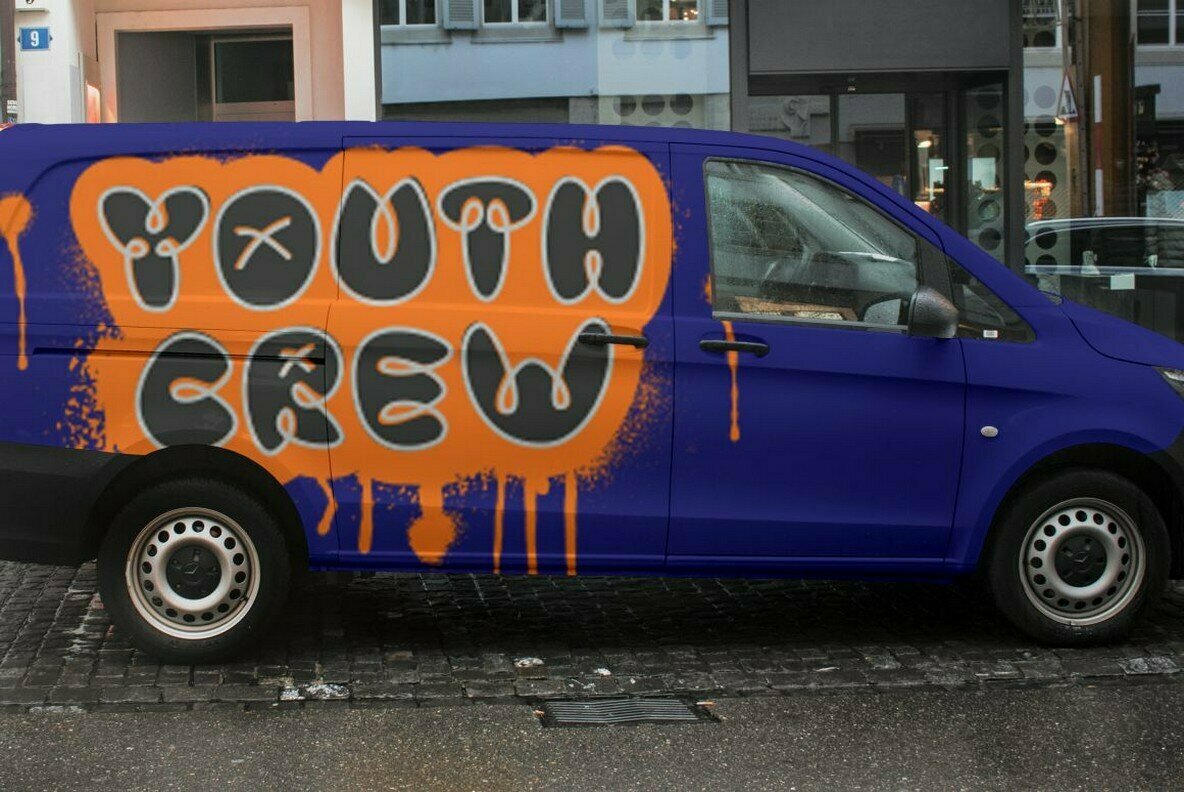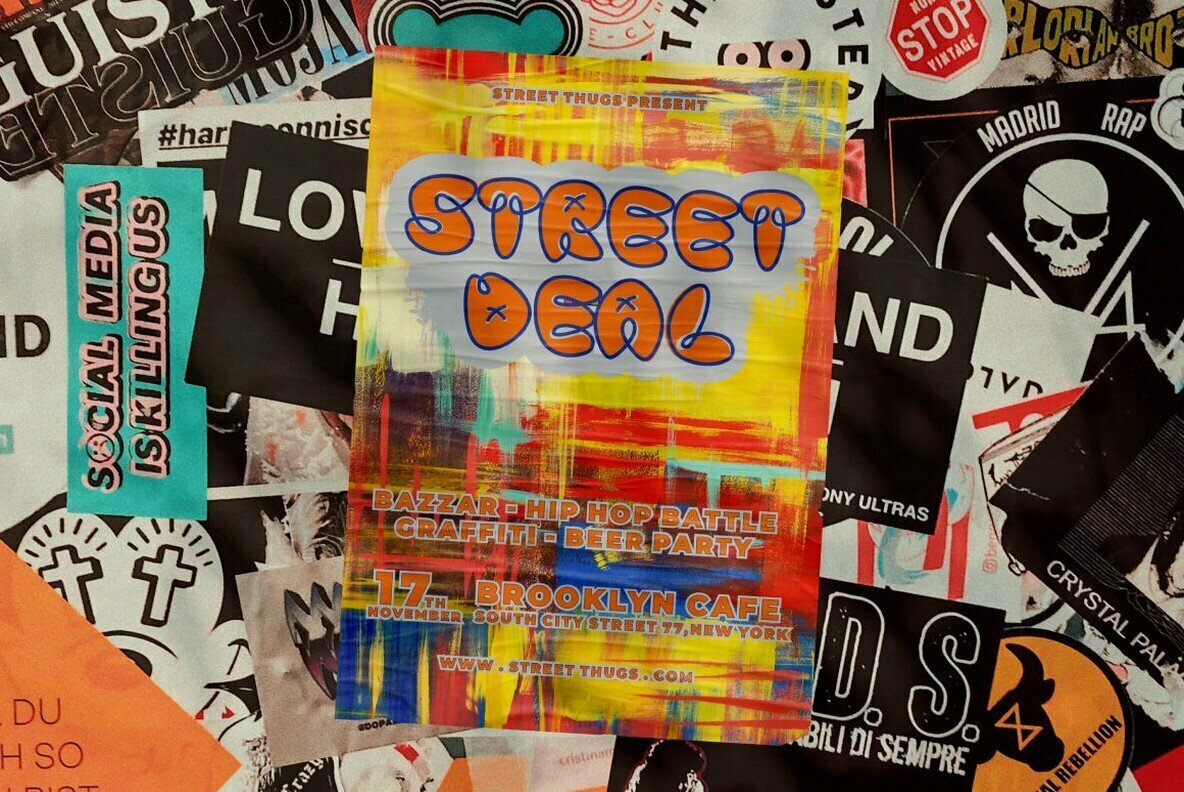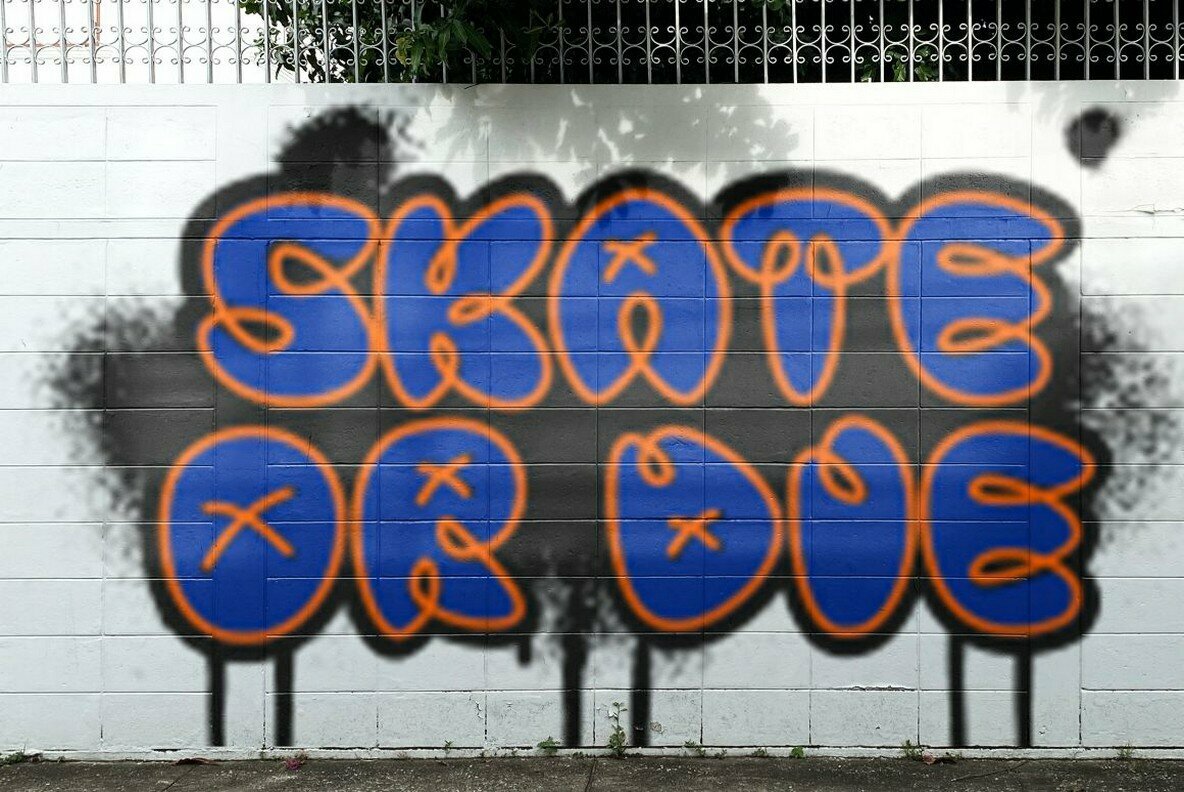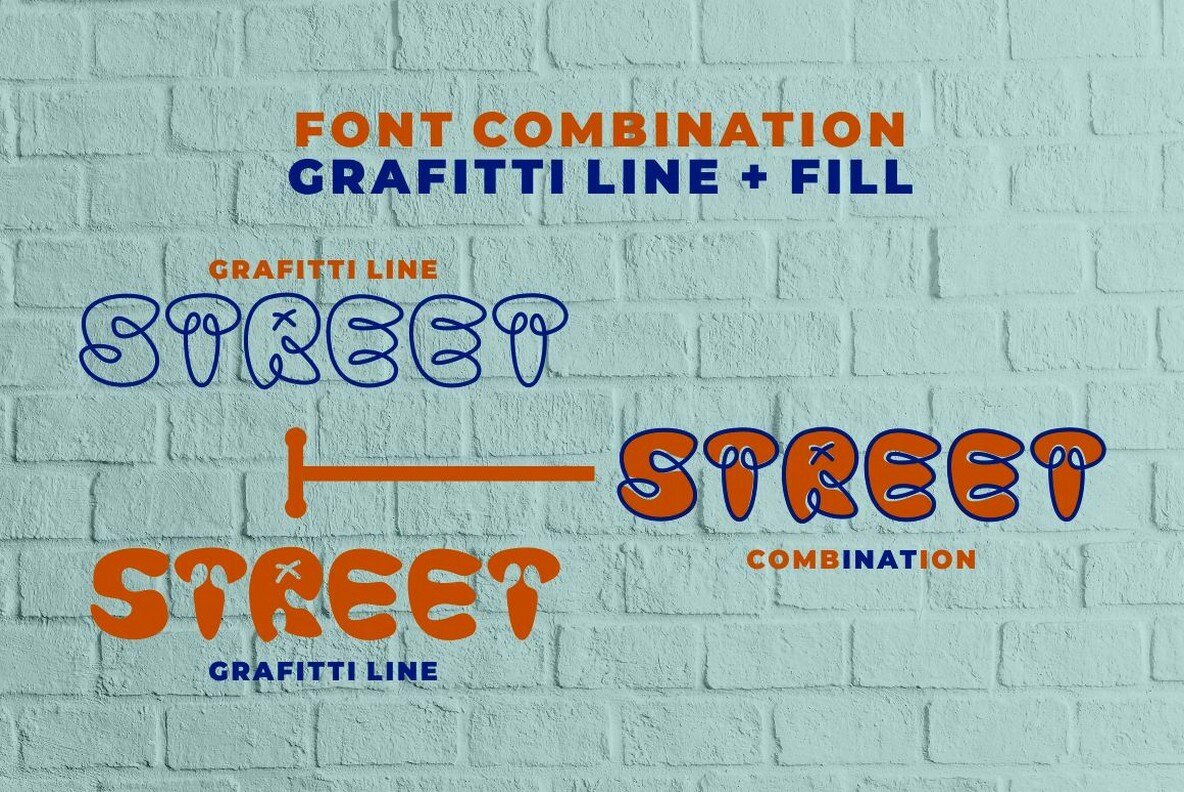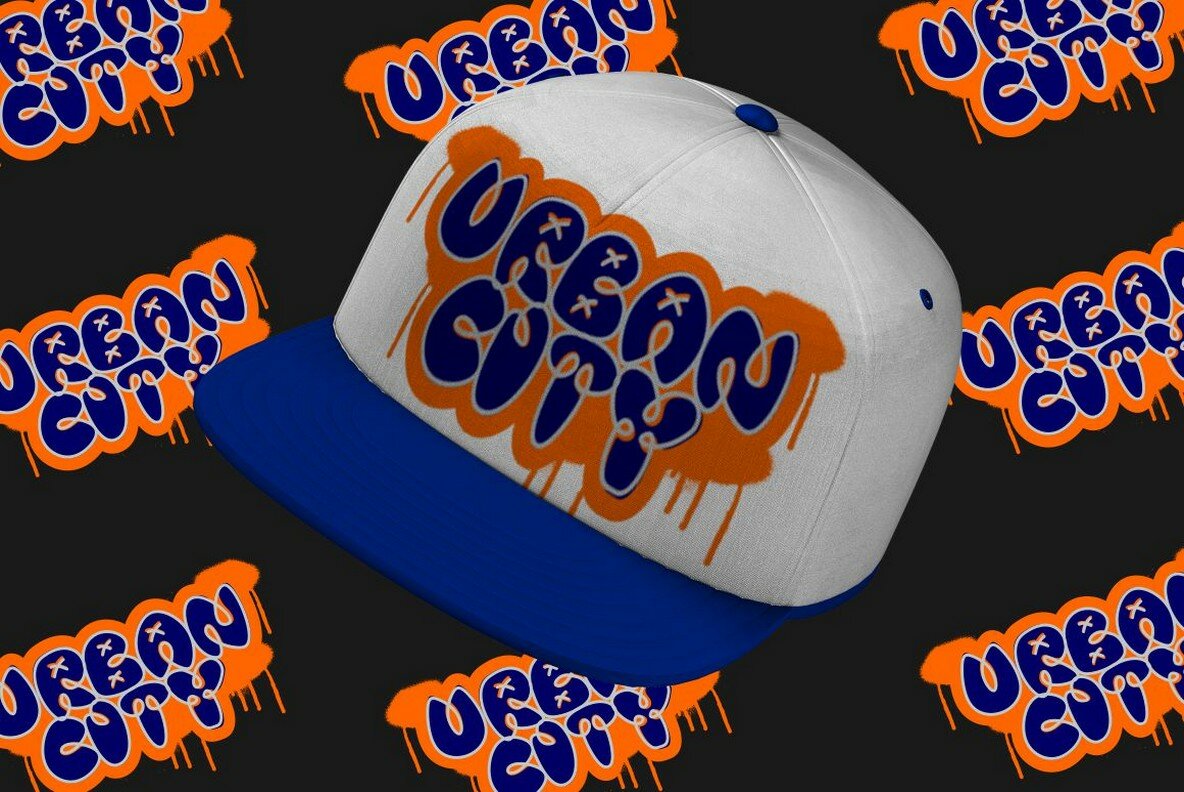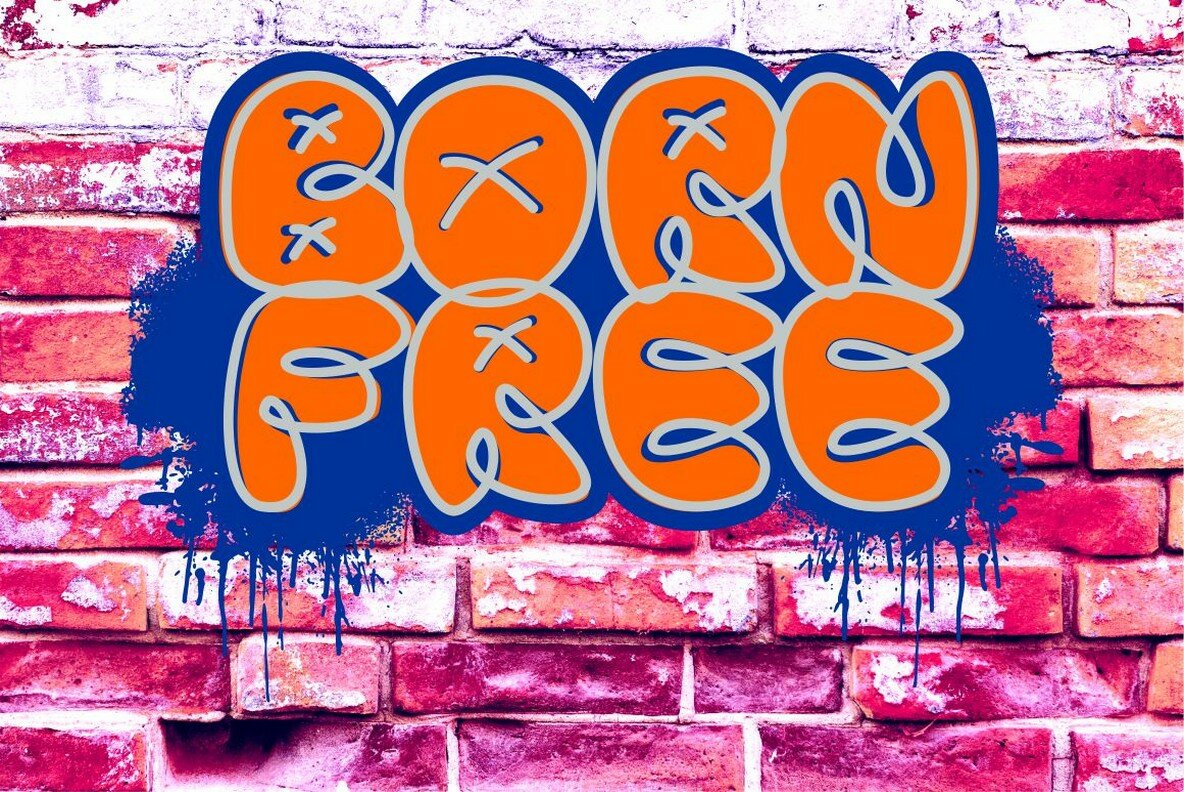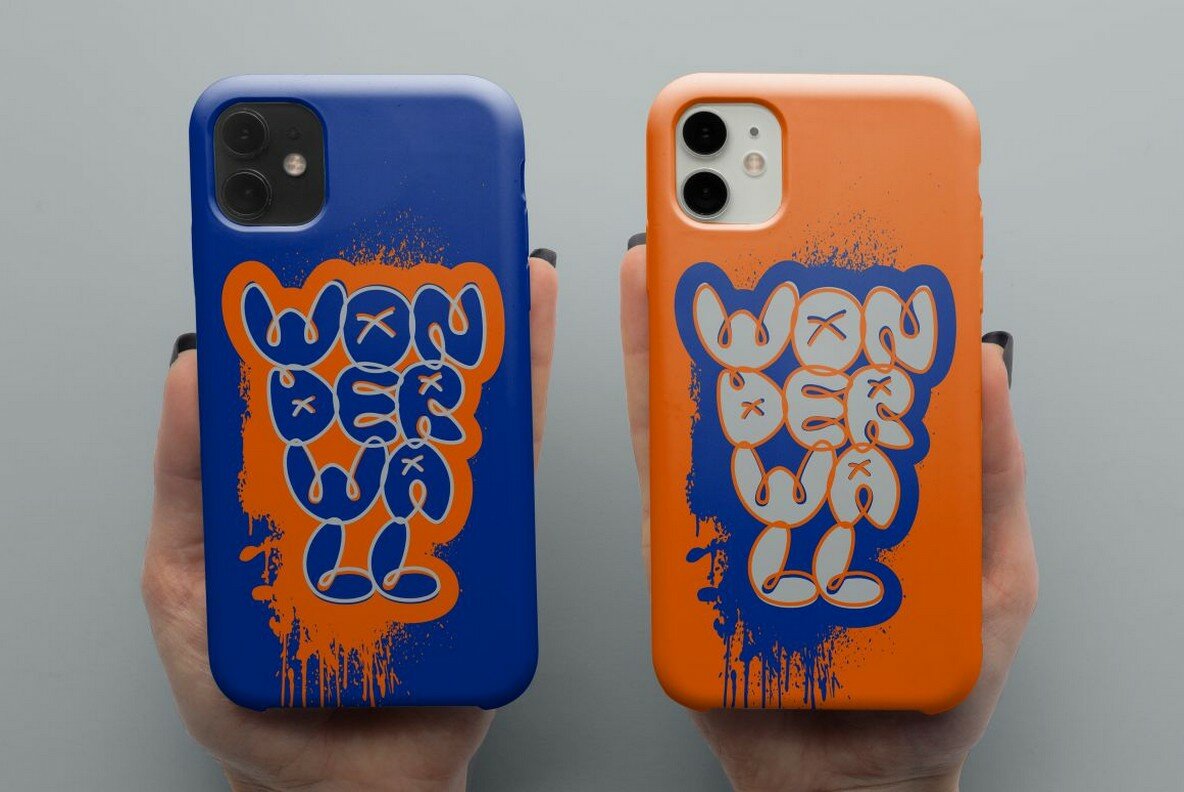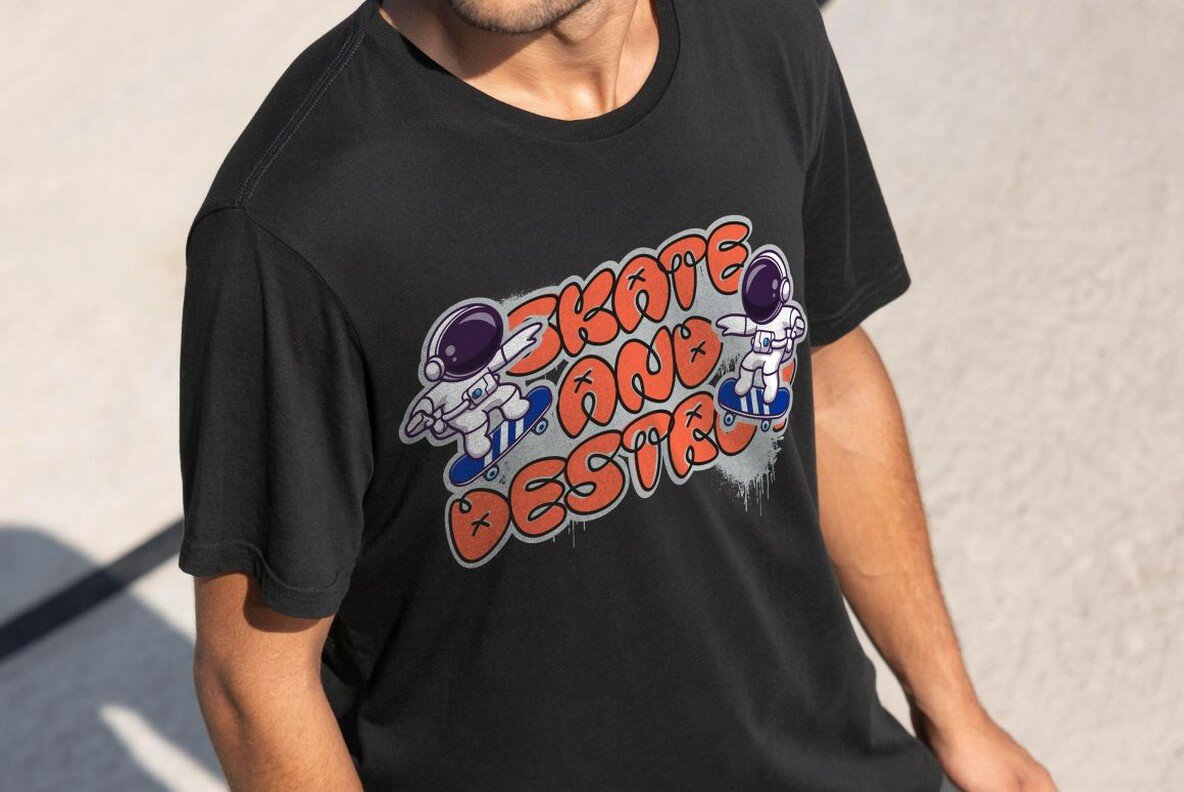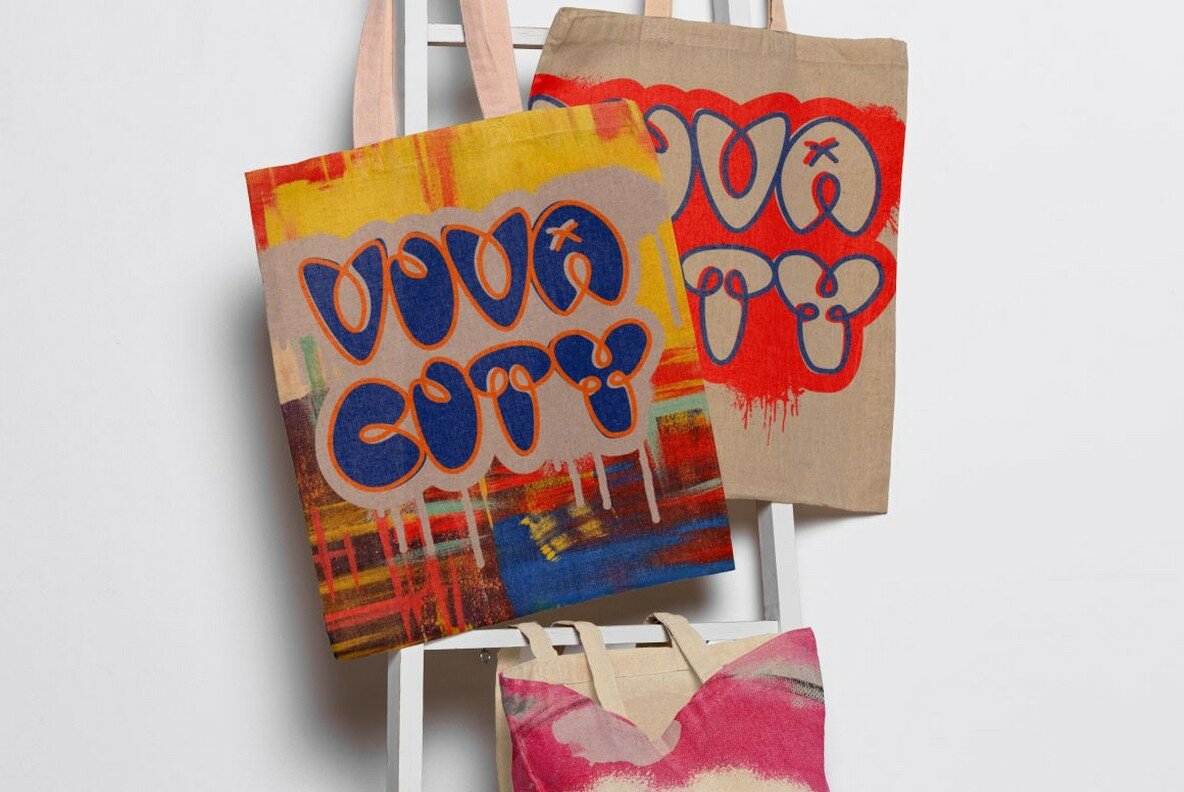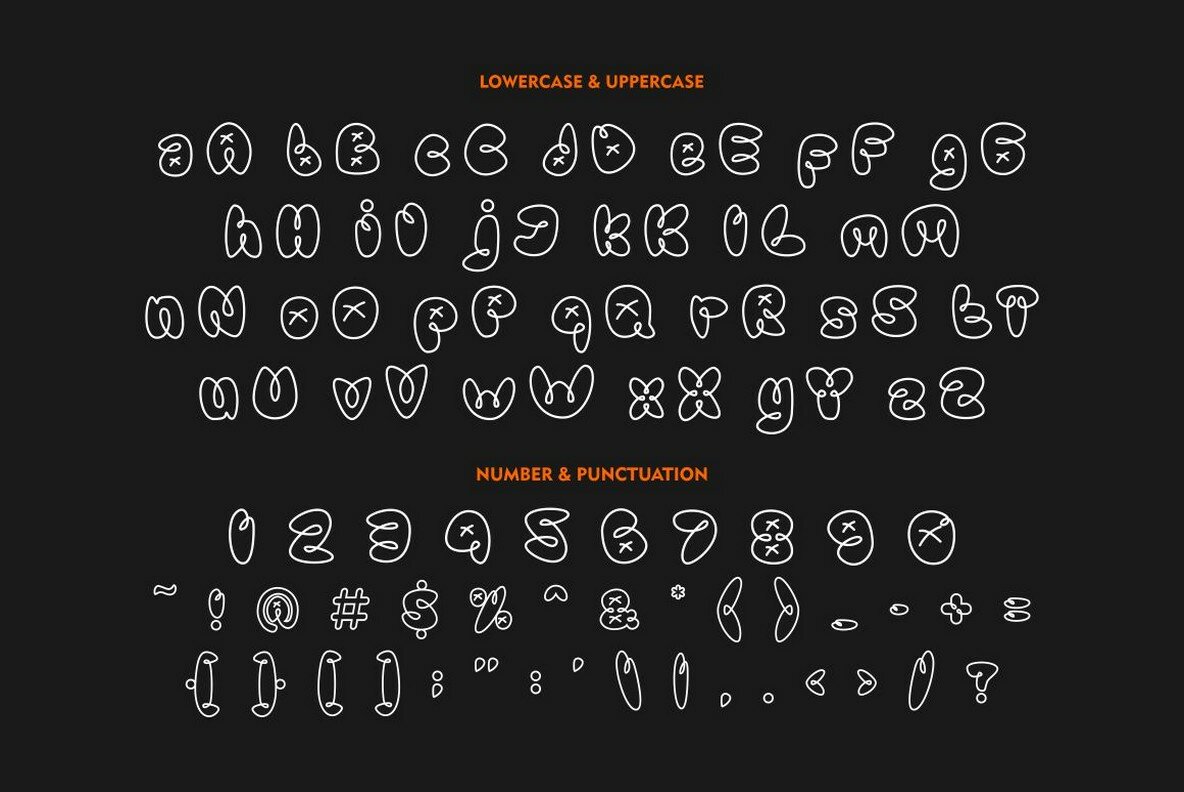
Graffiti Line Font
Graffiti Line
Graffiti Line Fill
Graffiti Line A Display Graffiti Style Font. Inspired by the graffiti art on the city streets, so I made it into a font.
So that it will make it easier for you to make graffiti writing or designs. There are much ligatures that will make this font even cooler.